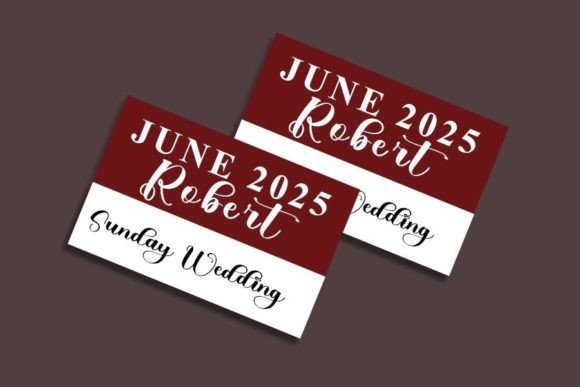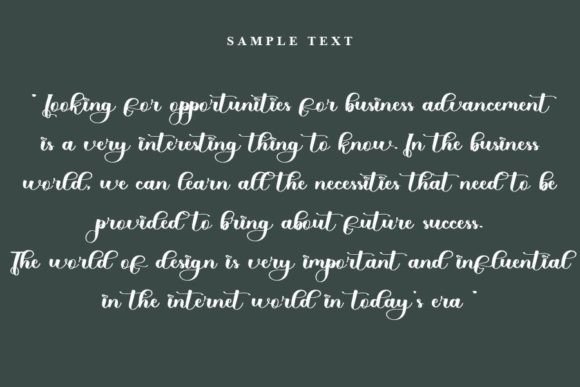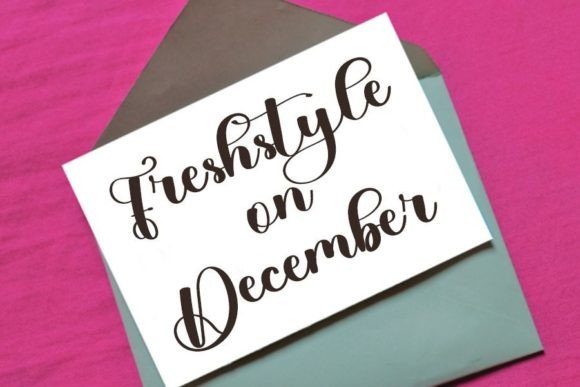
About Body Font
“Body: Where Timeless Elegance Meets Modern Style
Introducing Body, a font that effortlessly marries timeless elegance with contemporary allure. This stylish handwritten font exudes sophistication and charm, elevating the beauty of your projects to new heights. Inspired by classic calligraphy, Body captures the essence of tradition while embracing a modern atmosphere, resulting in a font that is both balanced and varied.
The beauty of Body lies in its impeccable form and exquisite craftsmanship. Each stroke is meticulously designed, reflecting the artistry of classic calligraphy while embracing a fresh and contemporary vibe. The font’s balanced proportions and varied letterforms create a harmonious visual experience, making it the perfect choice for a wide range of design projects.
Imagine your branding materials adorned with Body’s stylish and graceful letterforms, establishing a sophisticated and memorable brand identity. Picture your invitations and greeting cards enhanced by the font’s timeless elegance, leaving a lasting impression on recipients. With Body, your designs transcend the ordinary, becoming visual masterpieces that capture attention and admiration.
One of Body’s standout features is its ability to enhance the beauty of your projects. Its flawless form and contemporary aura make it versatile, complementing various design themes and aesthetics. Whether you’re working on logos, invitations, packaging, or any other creative endeavor, Body adds a touch of class and refinement, transforming ordinary designs into extraordinary works of art.
Moreover, Body is more than just a font; it’s an expression of artistic finesse. It embodies the meticulous attention to detail and the passion for design, making it an ideal choice for designers and enthusiasts who appreciate the beauty of handwritten typography. Its presence elevates your projects, infusing them with a sense of elegance and sophistication that captivates the viewer’s eye.
In a world where first impressions are paramount, Body helps you make a statement. It speaks the language of timeless elegance and modern style, resonating with those who appreciate the art of typography. Whether you’re designing for personal occasions or professional endeavors, Body becomes your trusted ally, guiding you toward design excellence.
So, why settle for ordinary when you can embrace the extraordinary with Body? Let this stylish handwritten font be the muse for your creative expressions, and watch as your projects come to life with impeccable form and contemporary allure. Let your creativity flow, and let Body be the brushstroke that paints your ideas into visual masterpieces, leaving a lasting impression on the world.”